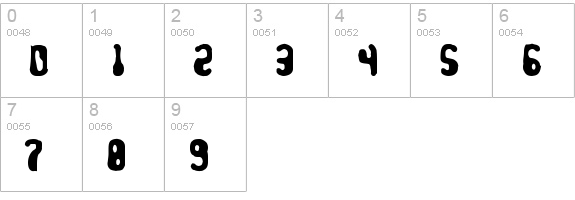
HydrogenWhiskey Ink Font Details
HydrogenWhiskey Ink font is a bold and dynamic typeface that exudes creativity and a touch of edginess. With its unique design and intricate details, this font is perfect for making a statement in any project, whether it be for branding, advertising, or artistic endeavors. The rough edges and uneven lines give HydrogenWhiskey Ink font a handcrafted and organic feel, adding character and personality to your text. The best part about HydrogenWhiskey Ink font is that it is completely free to download at FontsMarket.com. This means that you can access this stunning font without any cost, allowing you to elevate your designs without breaking the bank. Don't miss out on the opportunity to add HydrogenWhiskey Ink font to your font collection and unleash your creativity with this eye-catching typeface.